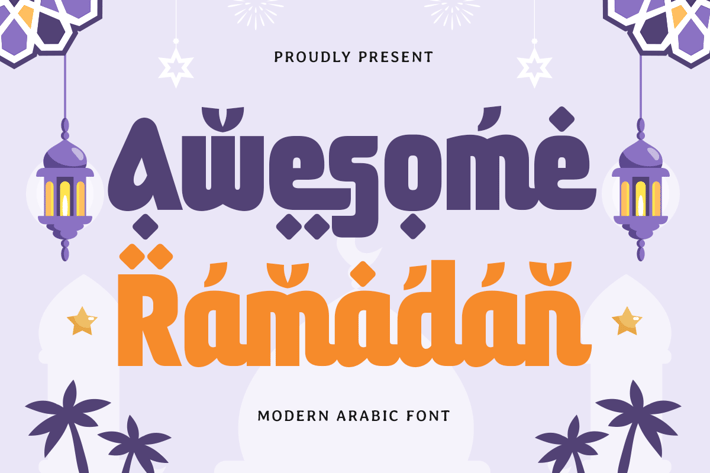
Awesome Ramadan - Modern Arabic Font
A Modern Take on Arabic Typography
Awesome Ramadan is a modern Arabic font designed to bring a bold and stylish touch to Ramadan-themed projects. Its contemporary design elements blend tradition with modernity, creating a unique and captivating visual experience.
Perfect for Celebrating Ramadan
From branding and invitations to social media campaigns, Awesome Ramadan is the ideal choice for capturing the spirit of Ramadan in a fresh, modern way. Its versatile design adapts beautifully to a variety of creative projects.
Bold and Beautiful Design
Awesome Ramadan is not just a font—it’s a statement. Designed to be visually striking and culturally resonant, it’s perfect for projects that demand attention and convey sophistication.
Awesome Ramadan Modern Arabic Font Features:
Alternates and Ligature Characters Ready
Punctuation, Number, and Symbol
* Opentype Features